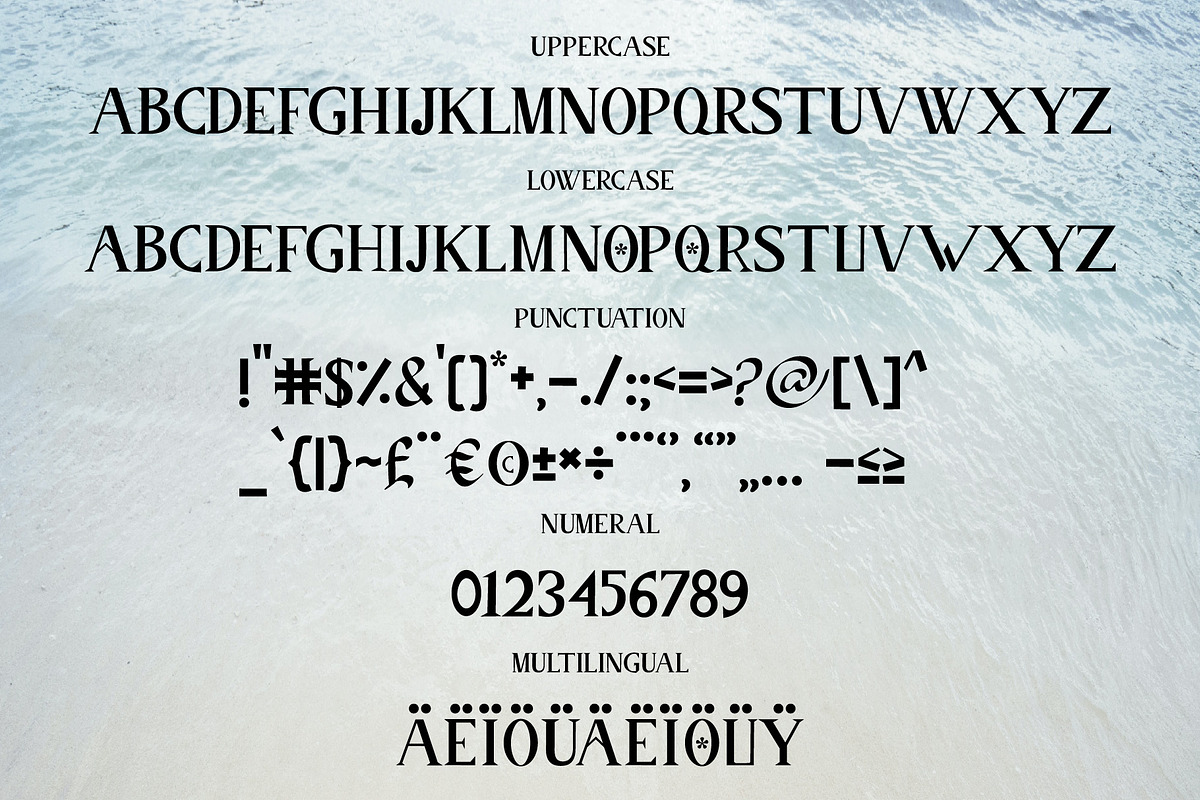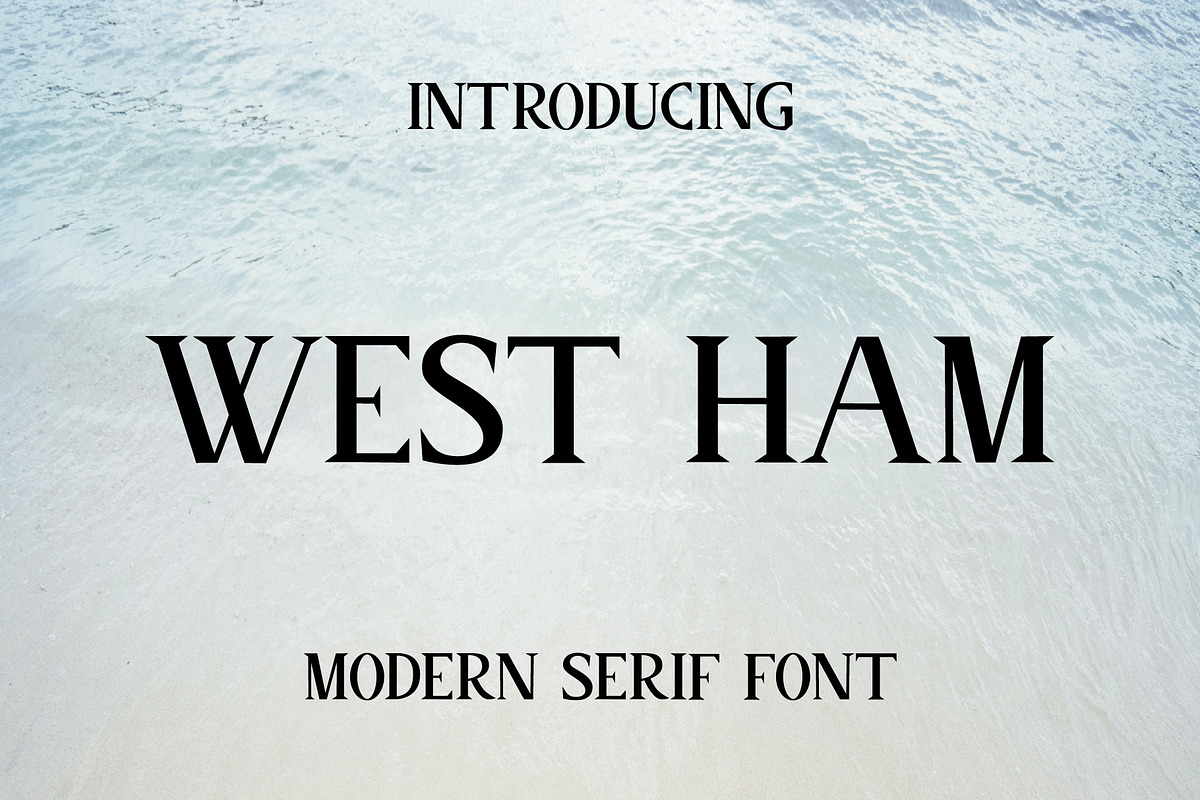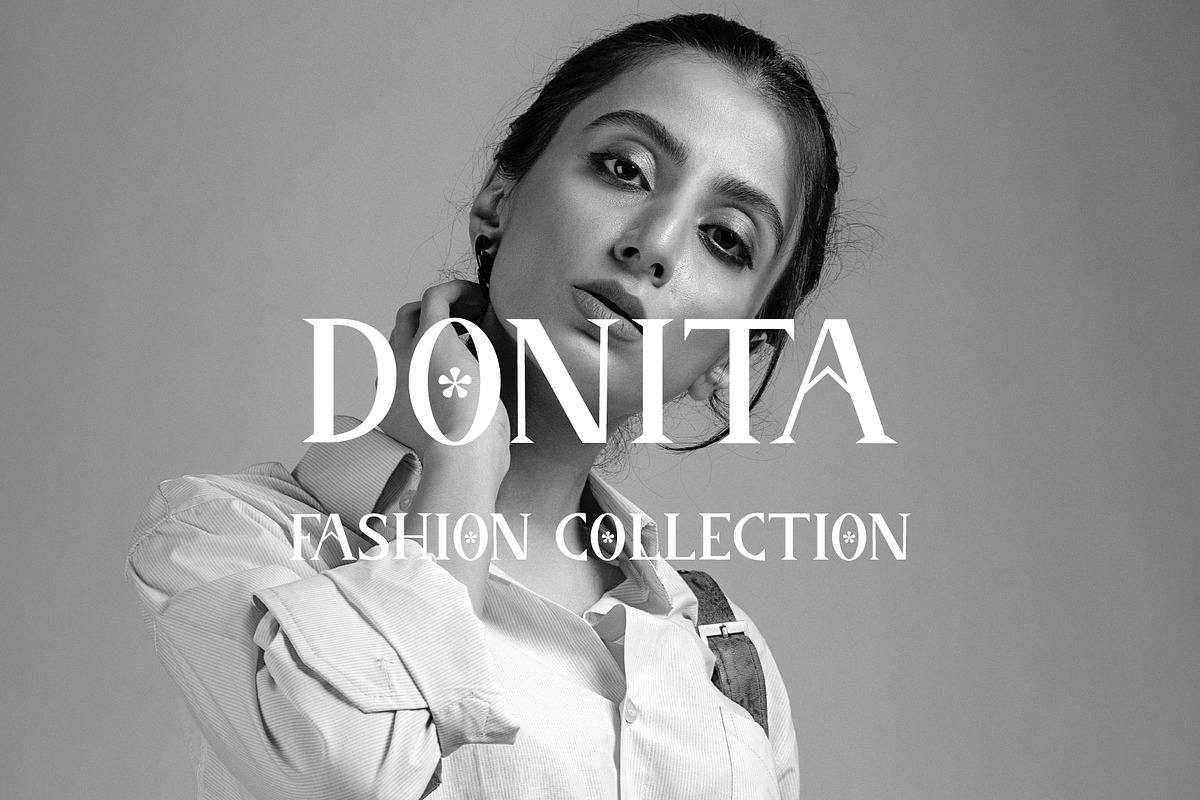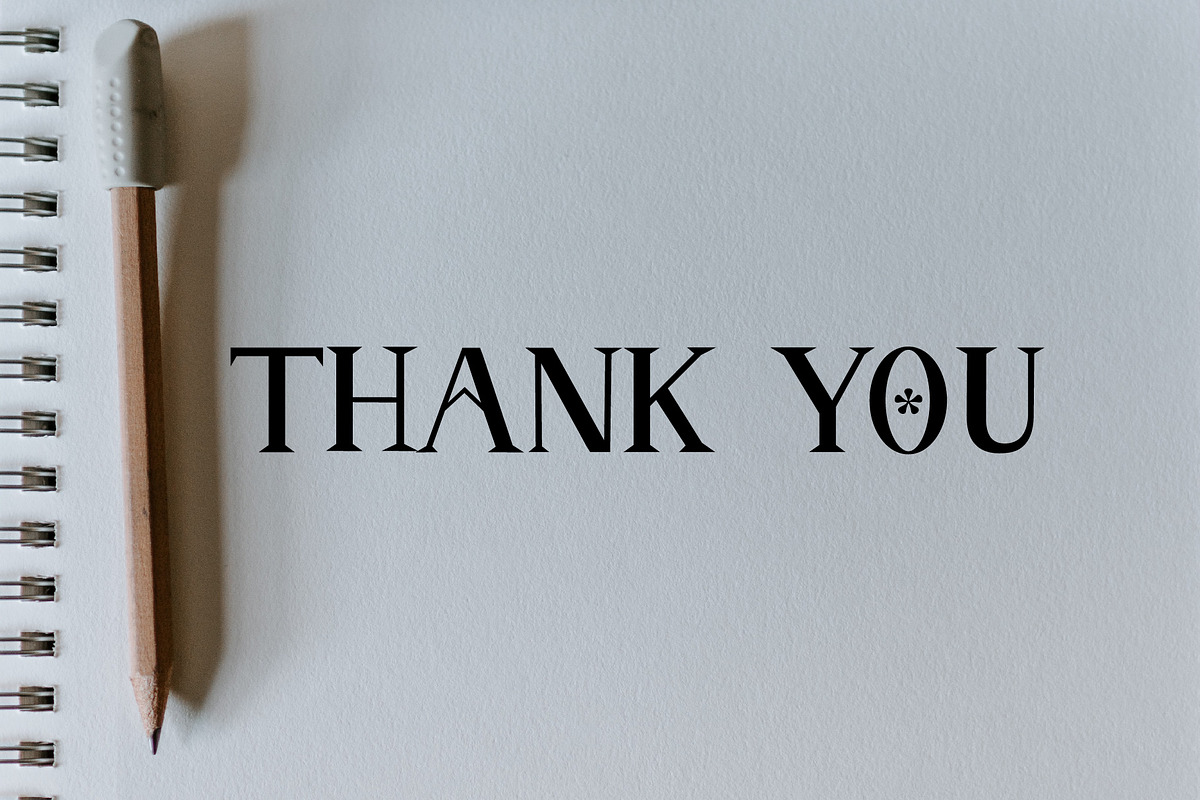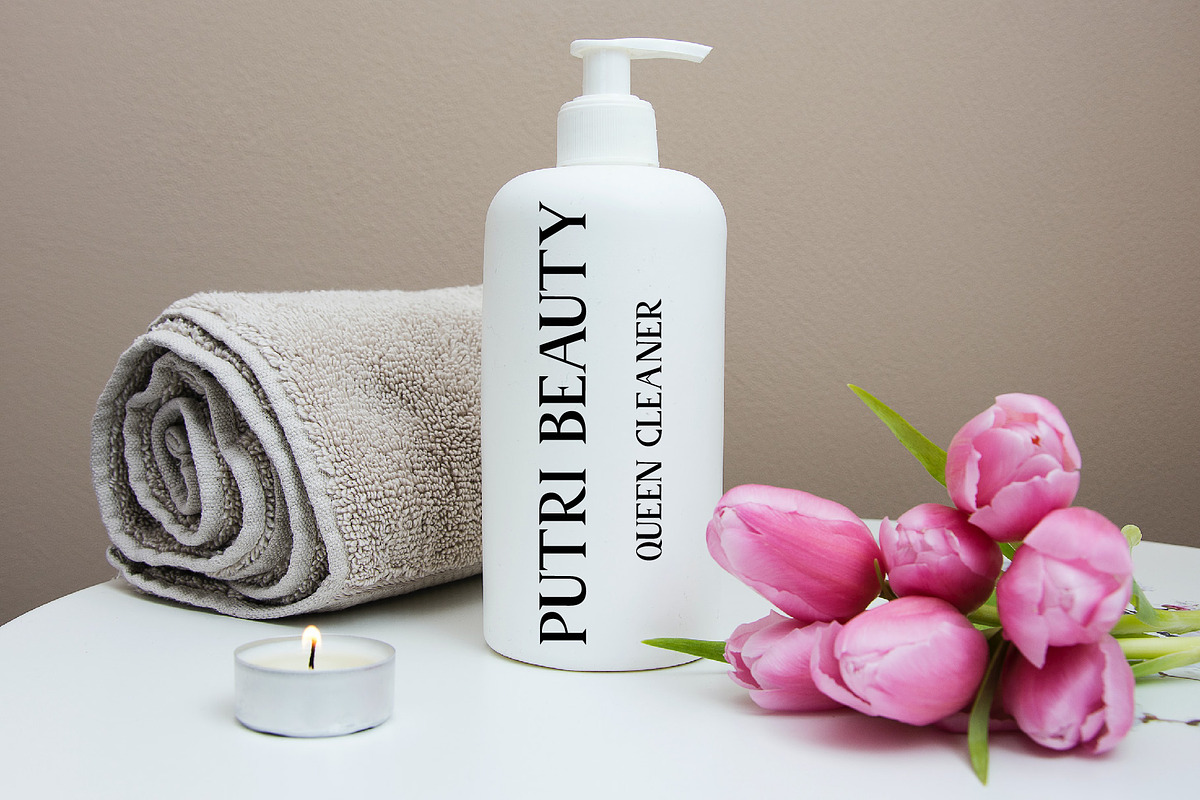
West Ham
West Ham is a serif font type that is made with a sharp characteristic at each corner, so that it gives an elegant and modern impression in every word written. This font is suitable for graphic design, photographer photos or others tailored to your needs. Thank You